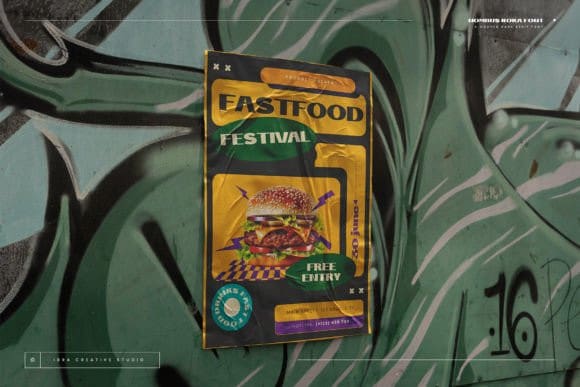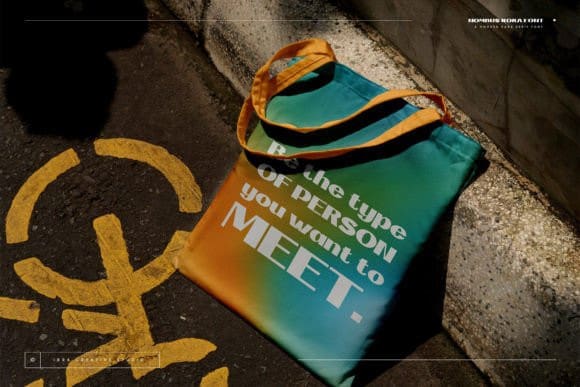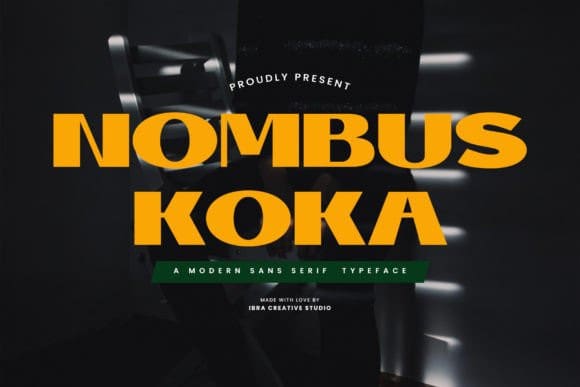
Nombus Koka Font
Nombus Koka Font, a modern sans-serif font, embodies a perfect blend of sleek sophistication and minimalistic charm. Its clean, geometric lines exude a contemporary aesthetic, making it an ideal choice for a wide range of design applications. Nombus Koka carries a timeless appeal with its balanced letterforms, providing clarity and readability across various platforms. The font’s versatility shines through in its ability to seamlessly adapt to both digital and print mediums, maintaining a sense of professionalism and modernity.